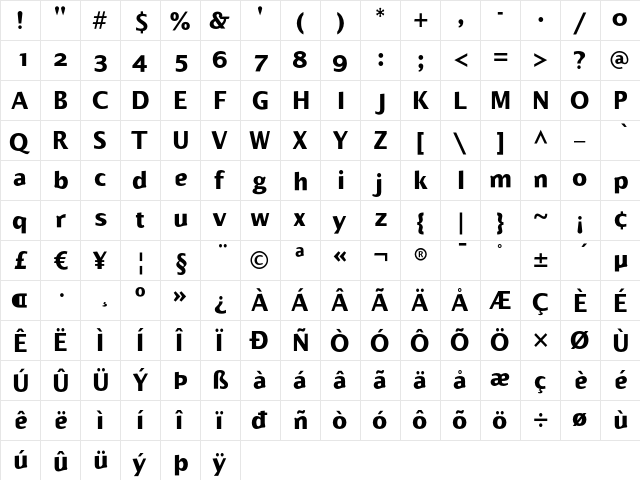
Alphabet2 Bold
Design Context for Alphabet2 Typeface
Alphabet2 is a composed and adaptable typeface that performs quietly and consistently across a wide range of design contexts. The heavy weight commands attention and anchors typographic hierarchies.